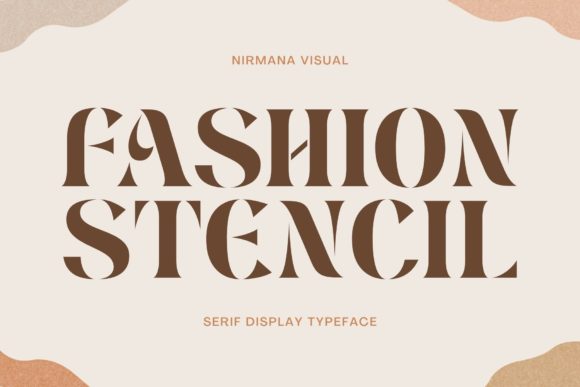
Introducing Fashion Stencil Font, the epitome of sophistication and elegance in the realm of serif fonts. This contemporary masterpiece, meticulously crafted by Sigit Dwipa, is more than just a font; it's an artistic expression that brings a touch of class to your creative endeavors.
Fashion Stencil Font captivates with its intricate details, sharp edges, and timeless appeal. Its meticulously designed characters exude an air of refinement, making it the perfect choice for projects that demand a sophisticated touch. Whether you're designing logos, creating social media posts, crafting advertisements, or designing products, Fashion Stencil Font will elevate your work to new heights.
Step into a world of boundless creativity with Fashion Stencil Font. Its versatility knows no bounds, allowing you to effortlessly add a touch of charm to any project. Its graceful lines add a touch of elegance to logos and branding, while its crisp edges make it ideal for social media posts and advertisements. Product designs take on a new life with Fashion Stencil Font, as its timeless beauty enhances the appeal of your creations.
Fashion Stencil Font is not just another font; it's an investment in your creative journey. Its versatility and timeless appeal make it an essential tool for any designer or artist seeking to make a lasting impression. Embrace the power of Fashion Stencil Font and unlock the door to a world of creative possibilities.